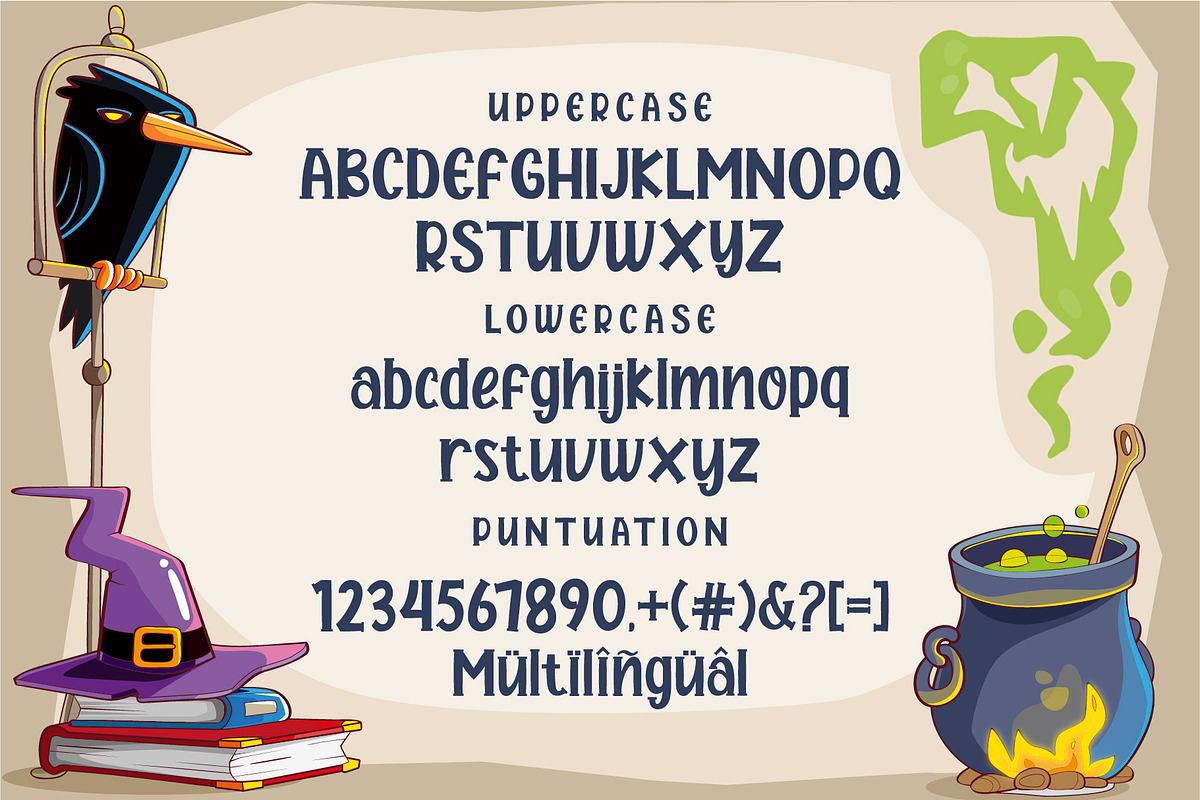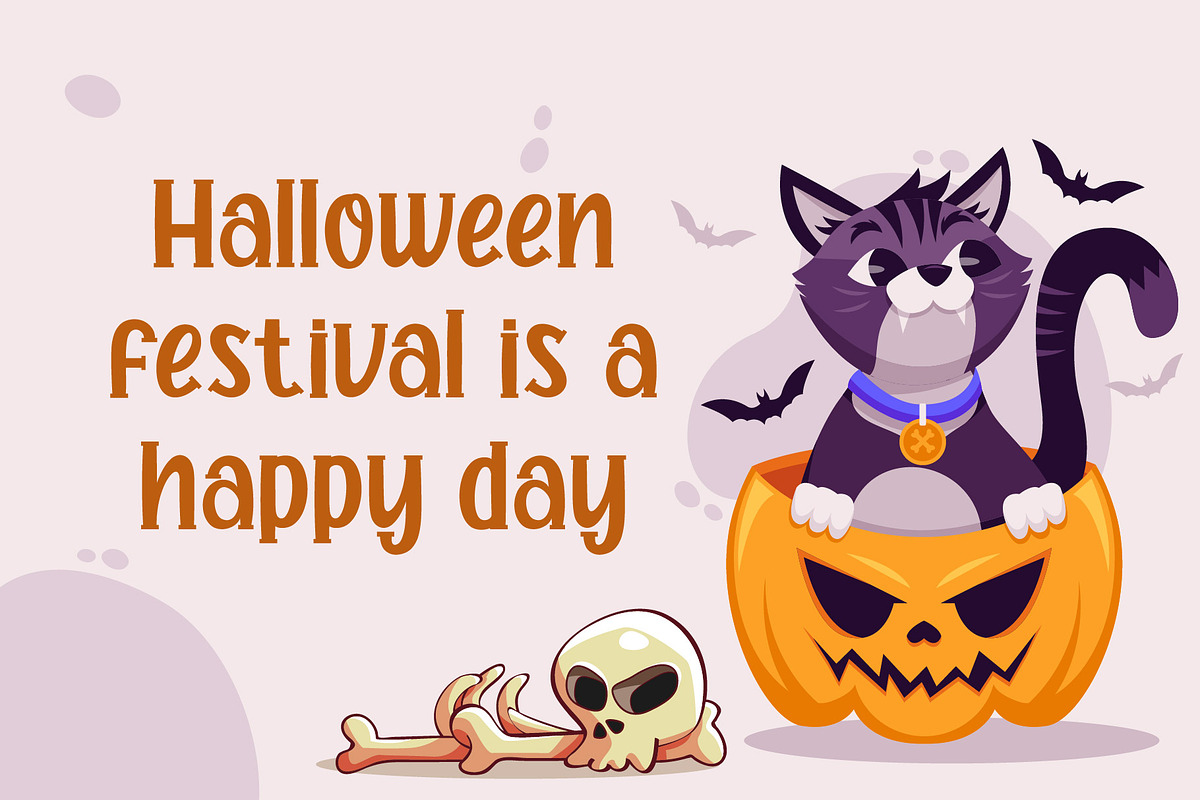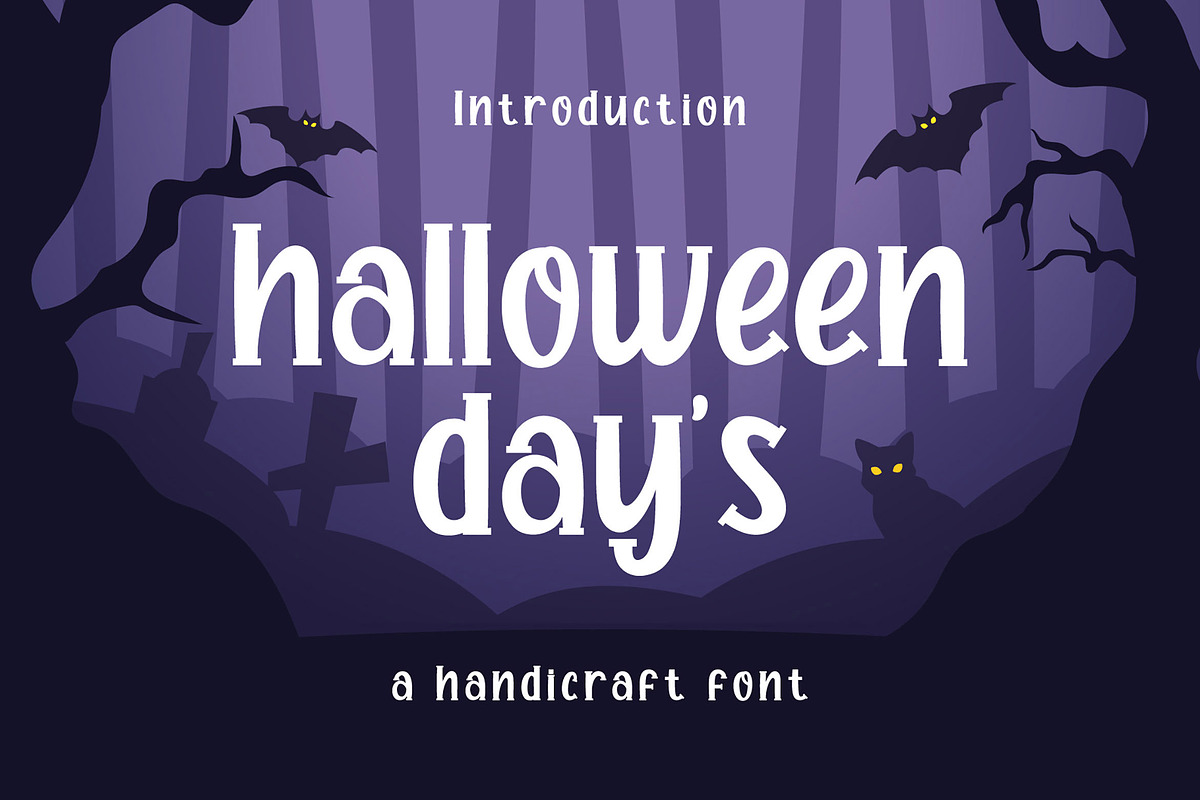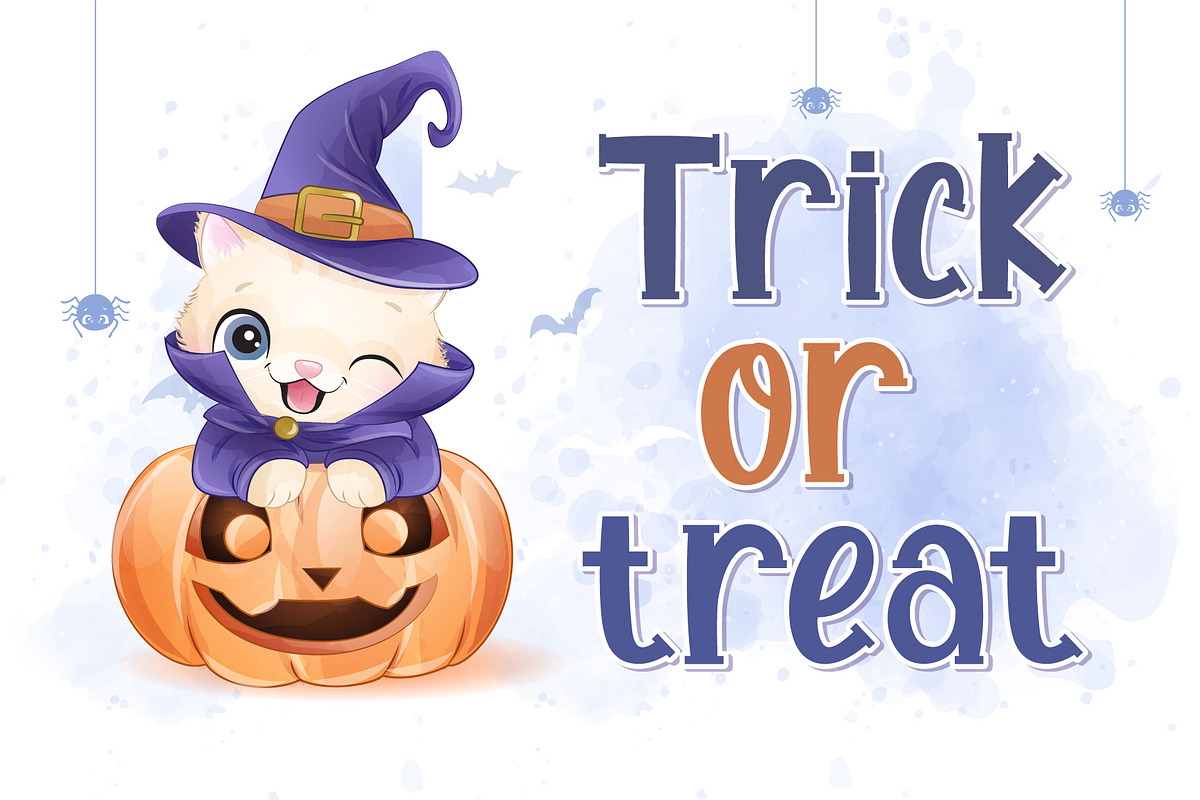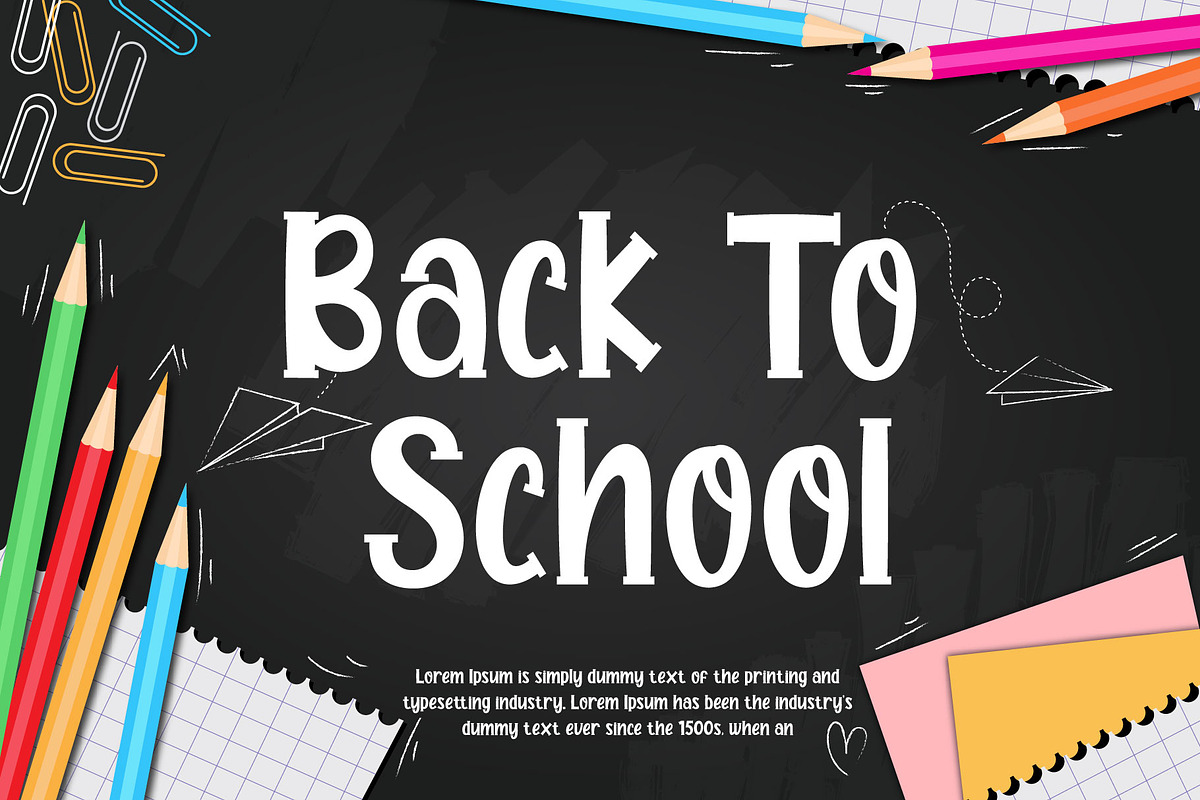
Halloween Day's Display Font
Halloween Day's is a simple lettered and friendly display font. Add this font to your creative ideas and notice how it will make them stand out!